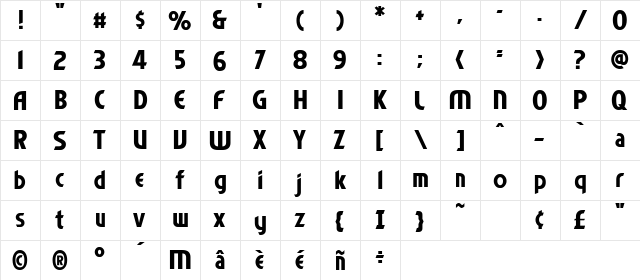
CCEuphoria Solid
Design Context for CCEuphoria Typeface
CCEuphoria offers clean, dependable letterforms without strong stylistic allegiance, making it a practical choice for designers who need flexibility.